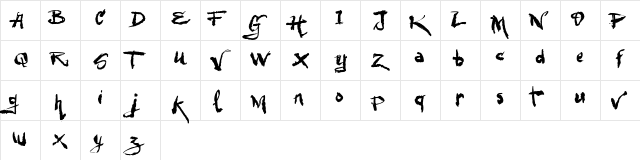
VTKS Urbanizart Regular
| Foundry | douglas vitkauskas |
| Designer | douglas vitkauskas |
Design Context for VTKS Urbanizart Typeface
VTKS Urbanizart is a composed and adaptable typeface that performs quietly and consistently across a wide range of design contexts.